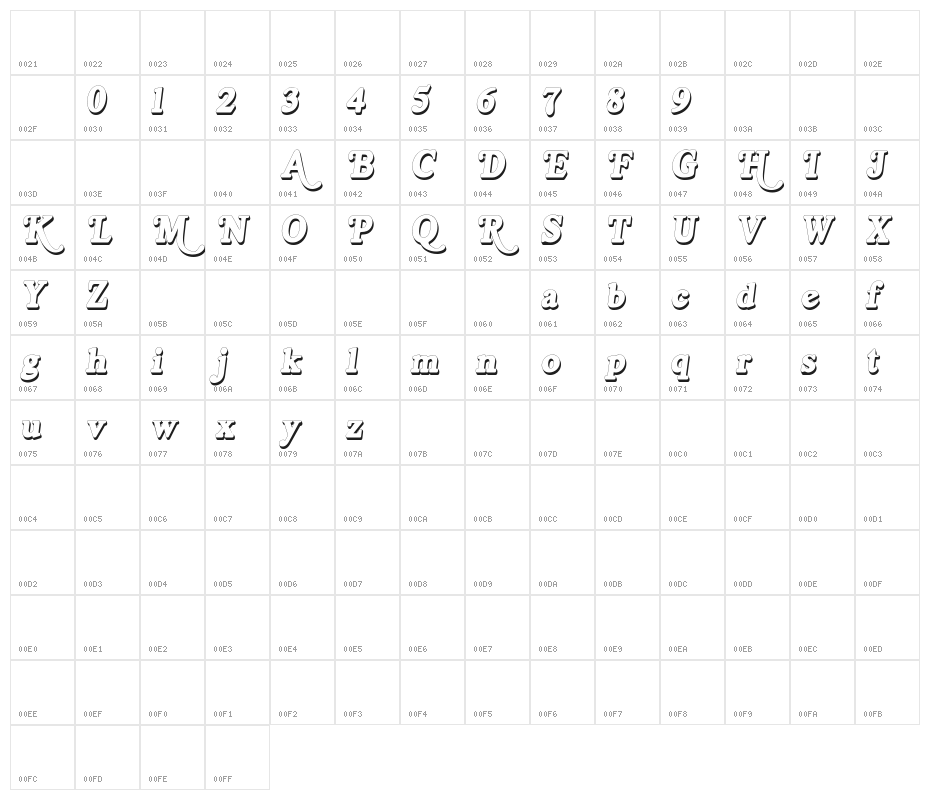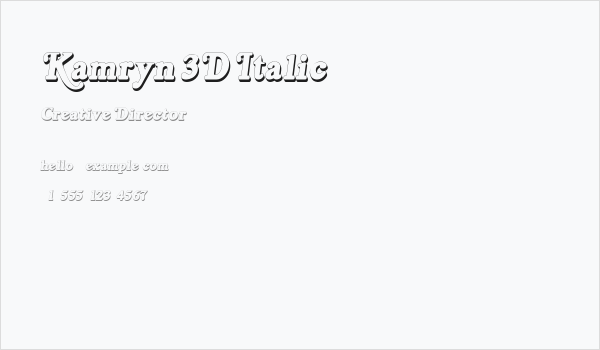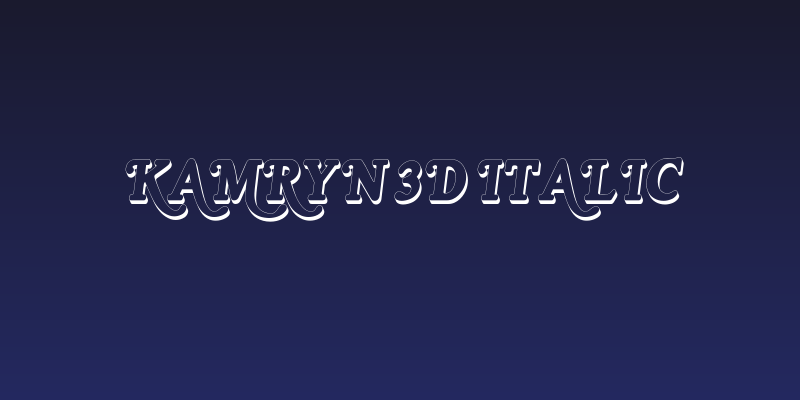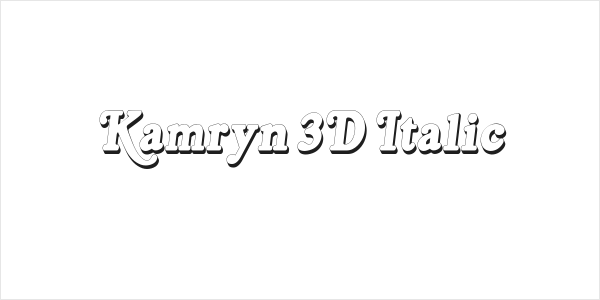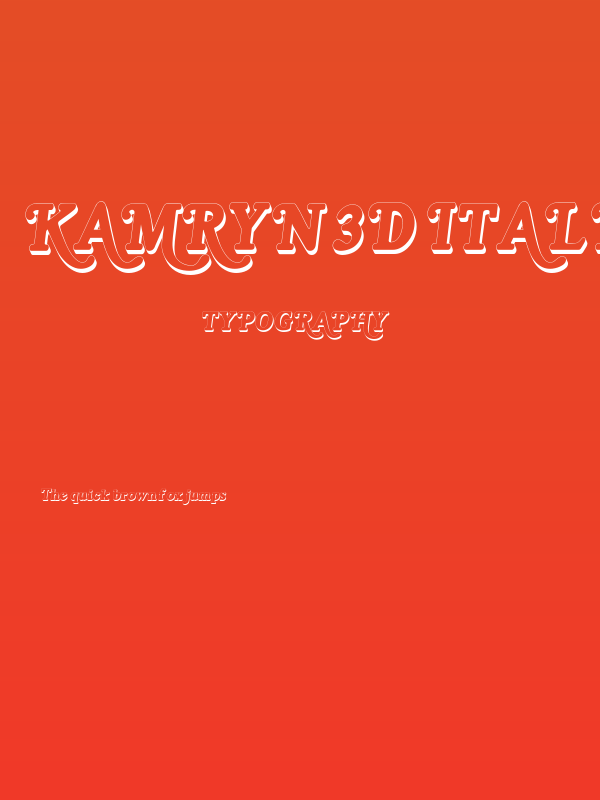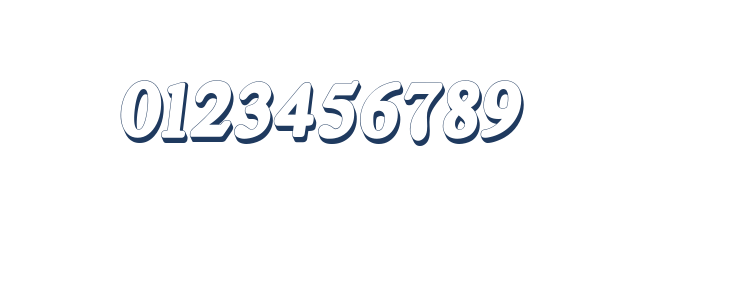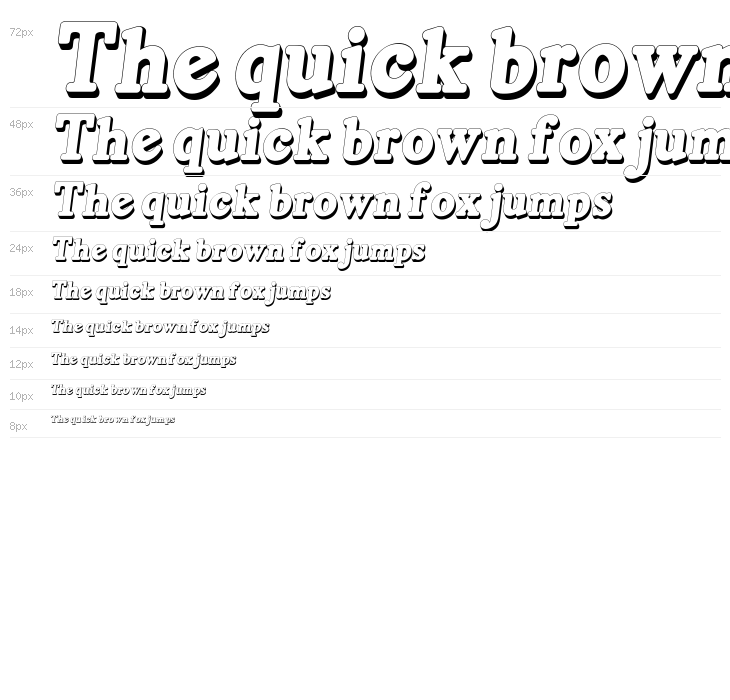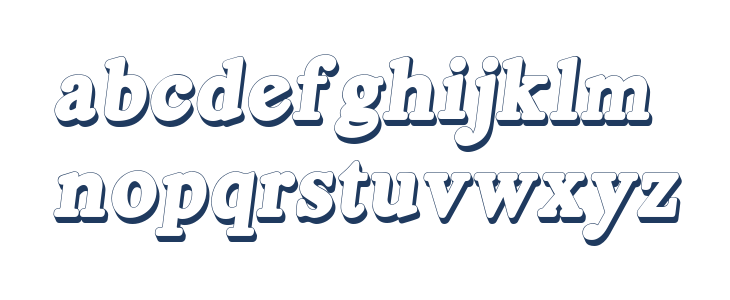
Kamryn 3D Italic Font
Kamryn 3D Italic Description
This font features a bold, three-dimensional design with a distinct italic slant, giving it a dynamic and playful appearance. The characters are robust and well-defined, with a shadow effect that enhances the 3D illusion. The uppercase and lowercase letters maintain a consistent style, with smooth curves and sharp edges that add to the font's boldness. Numbers and special characters are equally stylized, ensuring uniformity across all elements. The font's unique style makes it stand out, offering a blend of modern and decorative elements that can capture attention in various design contexts.
| Proposed Projects | Ideal for posters, headlines, logos, and any design requiring a bold, eye-catching font. |